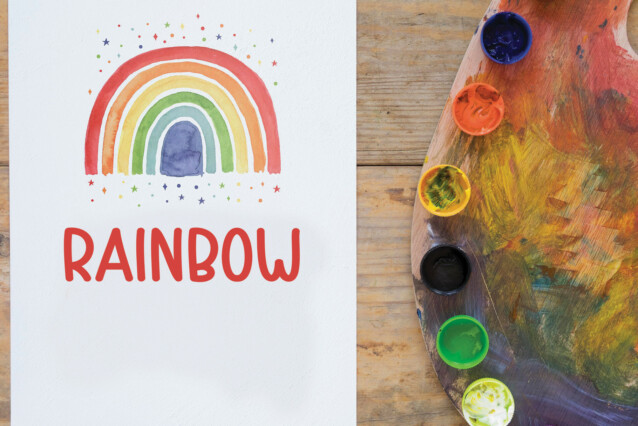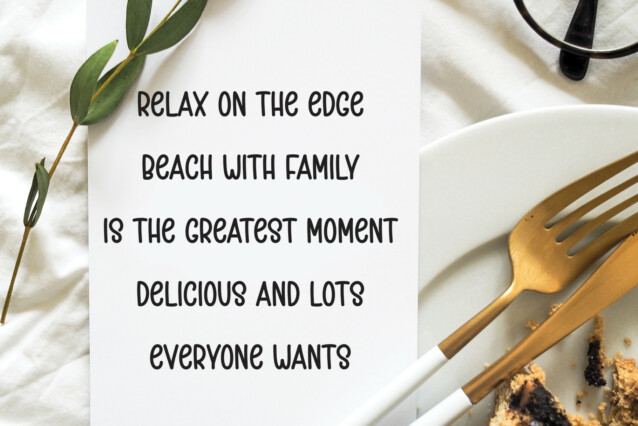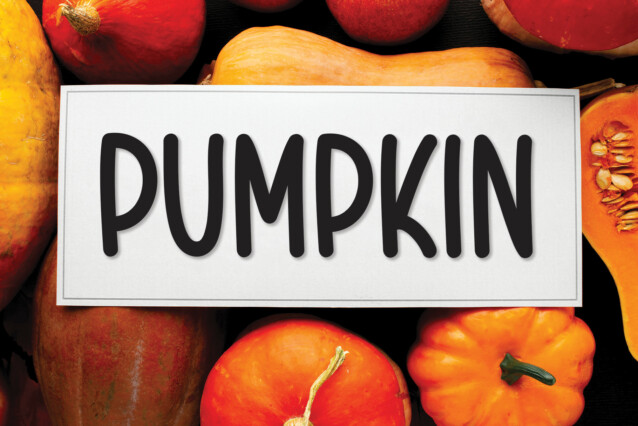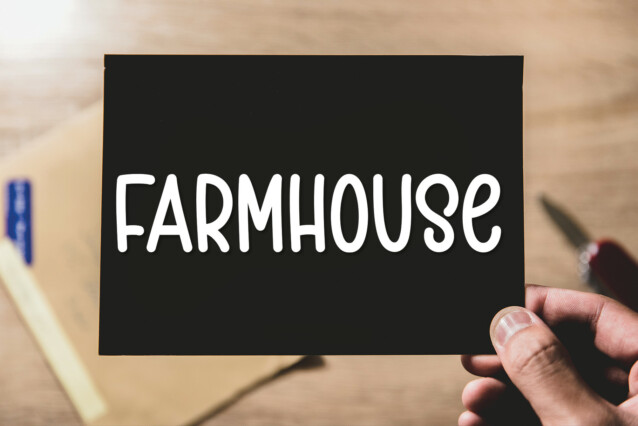
Funny Writing Display Font
Funny Writing Display Font is a casual and neat handwritten font. Whatever the topic, this font will be a wonderful asset to your font library, as it has the potential to enhance any creation.